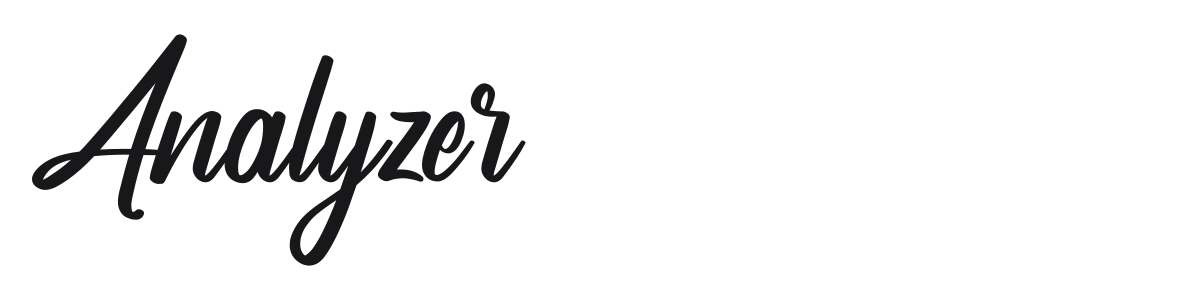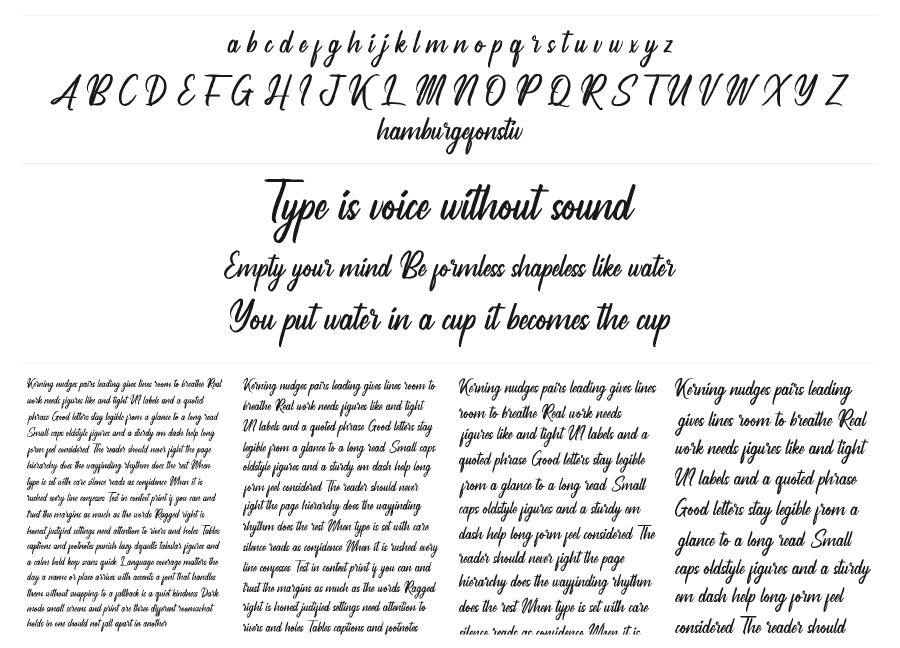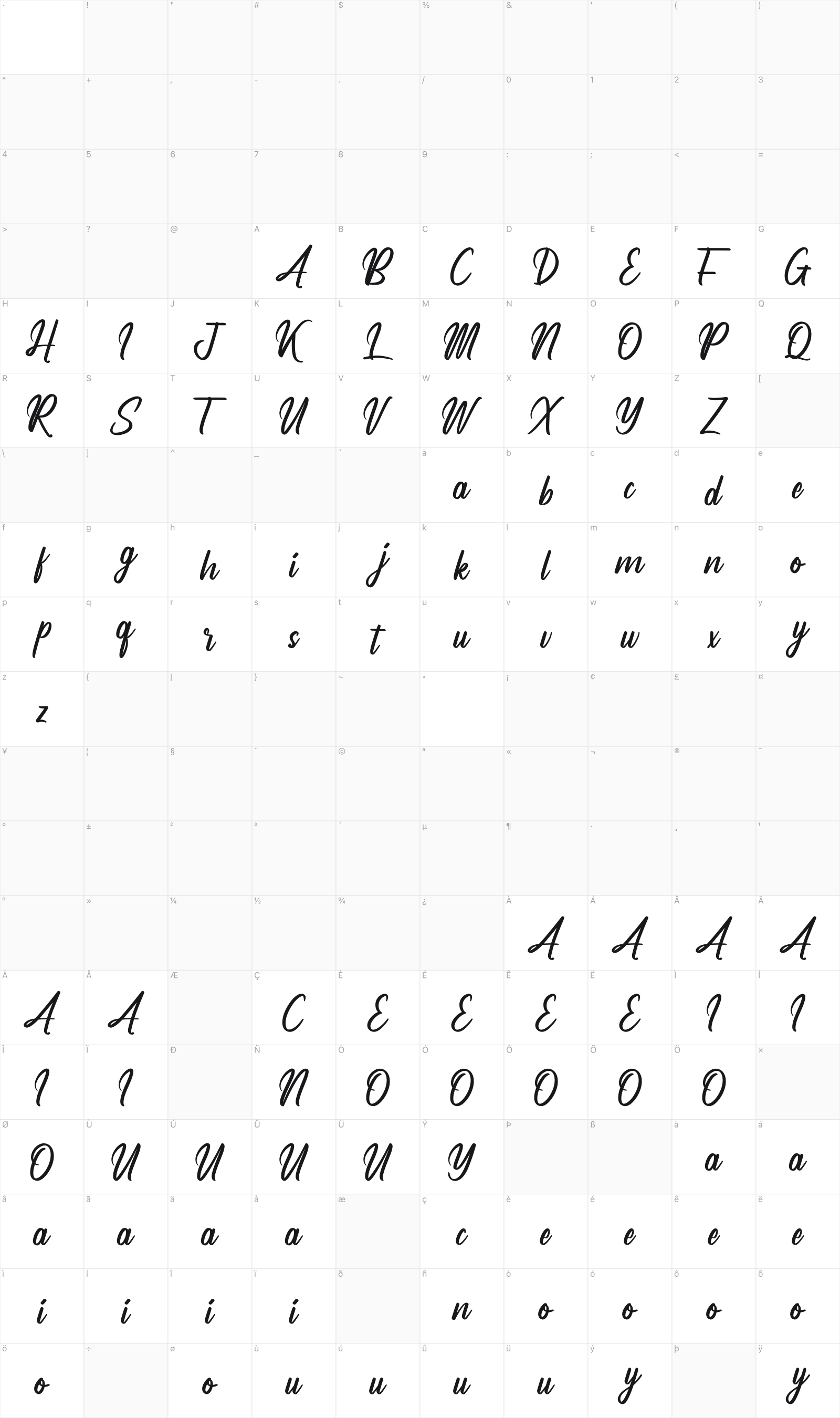
Analyzer
Analyzer is a bold casual script with fluid, connected strokes and a natural forward lean. The generous curves and moderate stroke contrast give it a handcrafted warmth without feeling rough or informal. It sits comfortably in branding, packaging, and anywhere a friendly handwritten presence is needed.